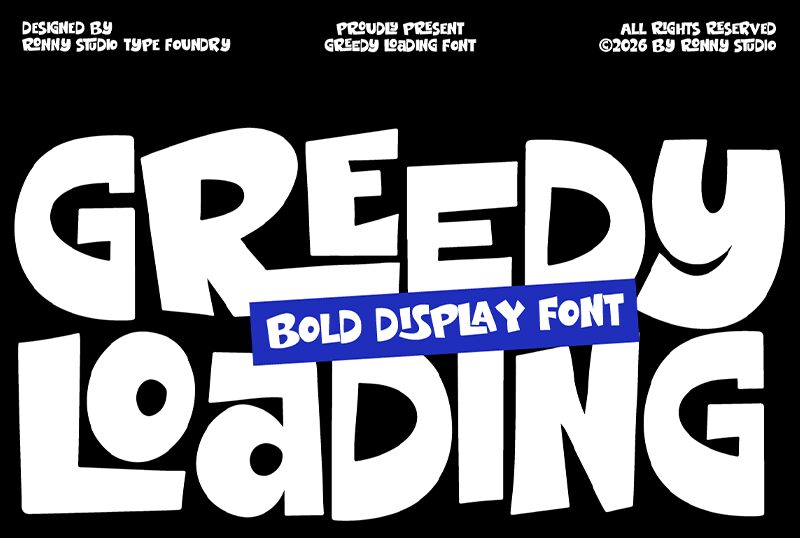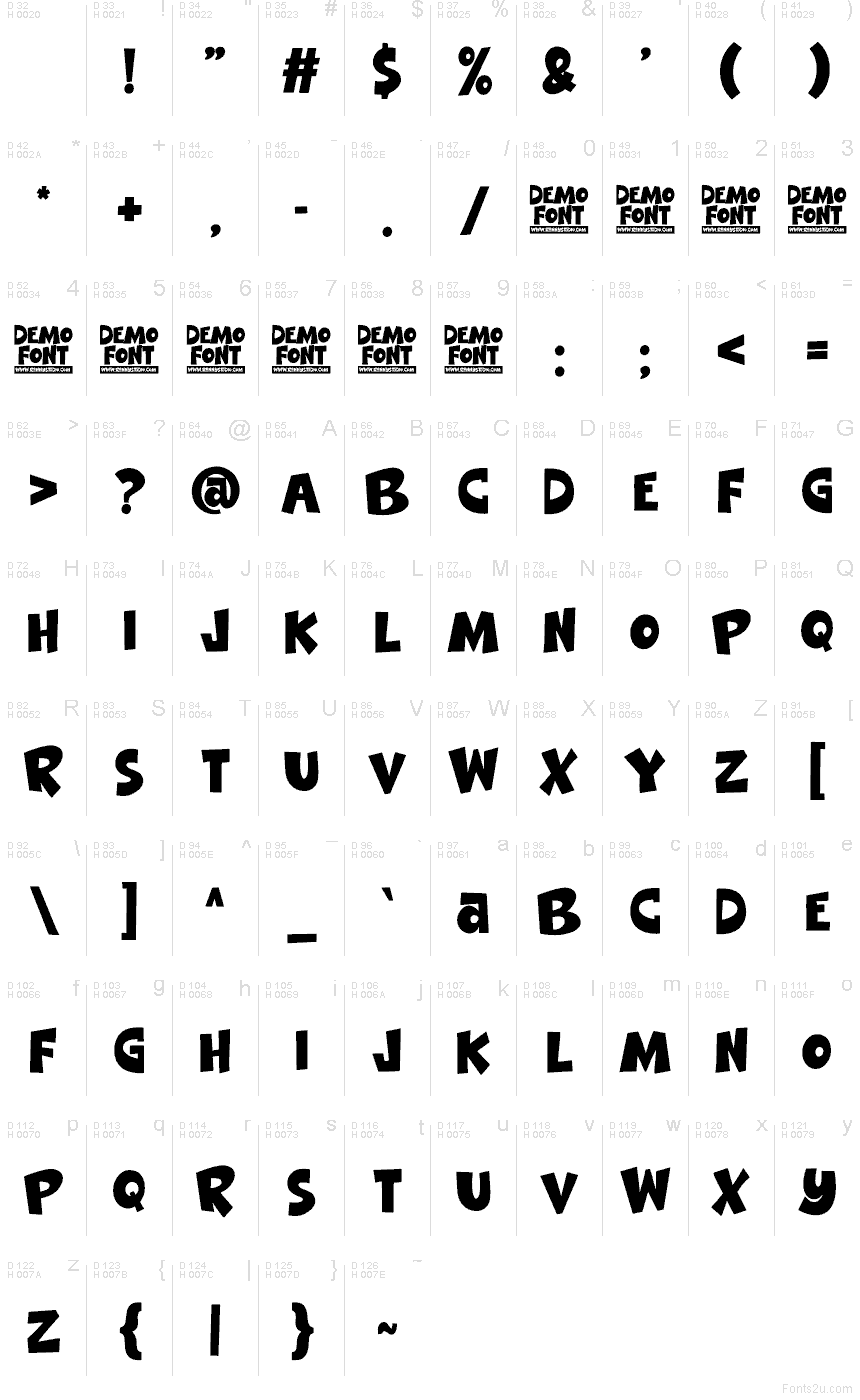
Greedy Louding DEMO
Greedy Louding font by Rony Rizki Jaya of Ronny Studio is a free comic font with chunky, bouncy letterforms that feel cut from soft foam and stamped in fresh ink. Its uneven rhythm and playful gaps give every word a loud grin—bold without being stiff, messy without turning muddy. It’s the kind of typeface that instantly adds comedy and motion, even in a simple two-word headline.
Using Greedy Louding, you’ll get punchy results on kids’ posters, snack or candy packaging, YouTube thumbnails, comic-style titles, party invites, stickers, and game UI splash screens. This free font also shines on merch like tees and caps where thick shapes stay readable at a distance. Pair it with a clean geometric sans for body text, and let Greedy Louding take the biggest sizes for maximum pop.